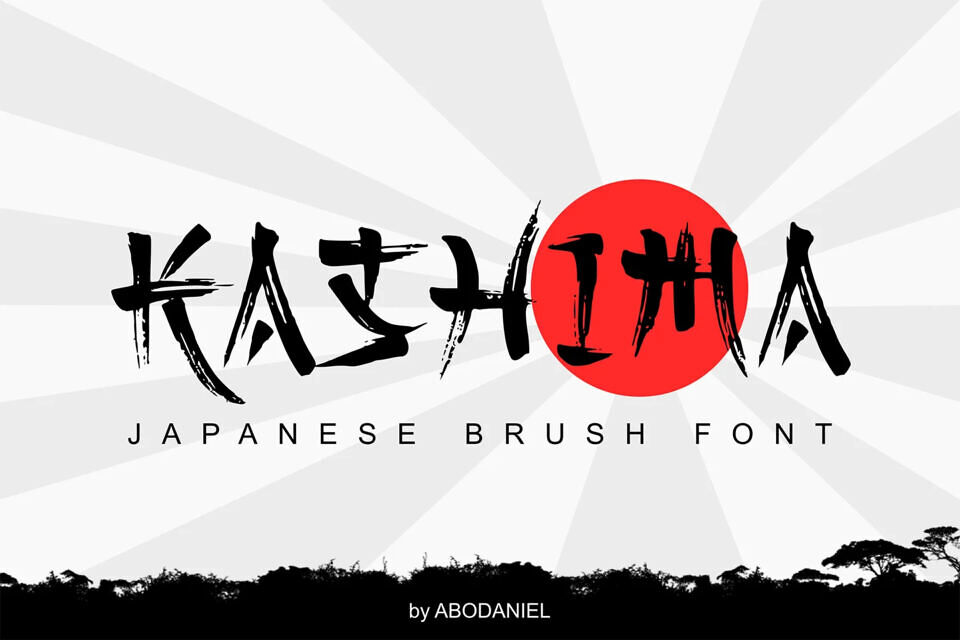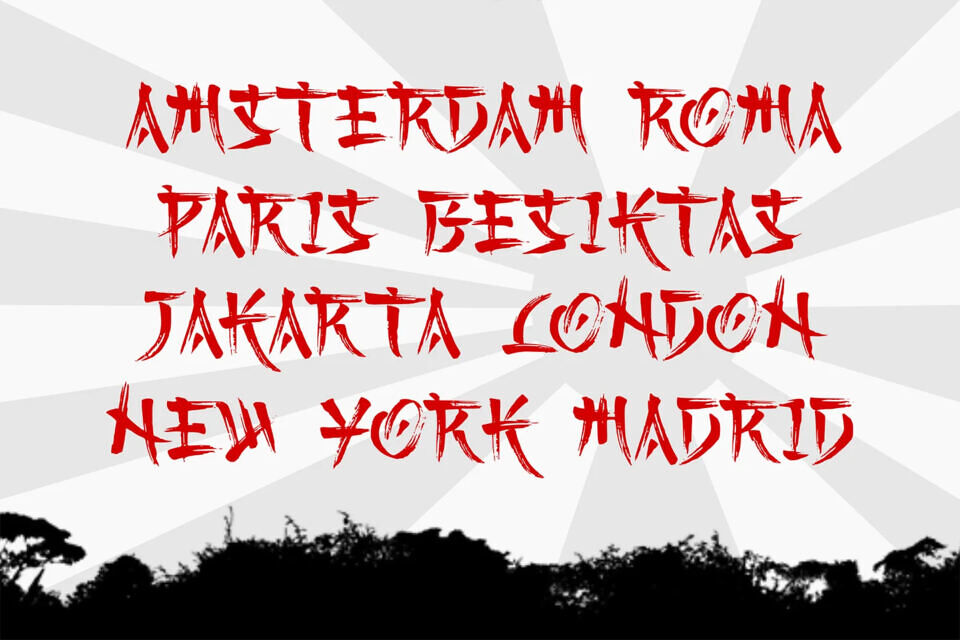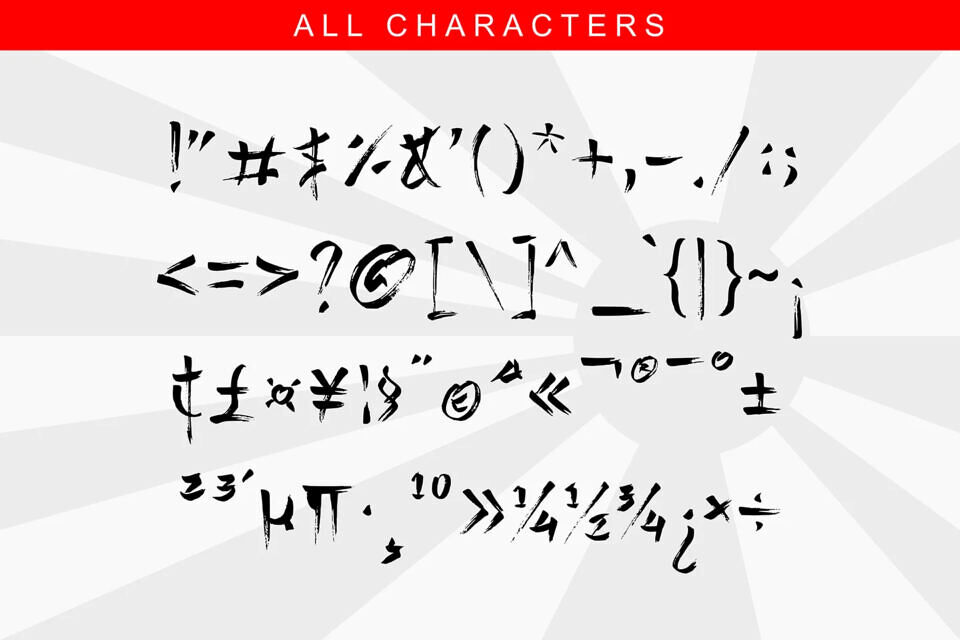
Kashima Font
Kashima is a brush font with a Japanese style that made using a real brush pen. It looks very natural.
This font is great for apparel, branding, logo, magazine, quotes, packaging, advertising, and more, that need a styling of a Japanese brush feel.
Kashima is all capital font and includes punctuation, symbols, and numerals. It also has multilingual support.